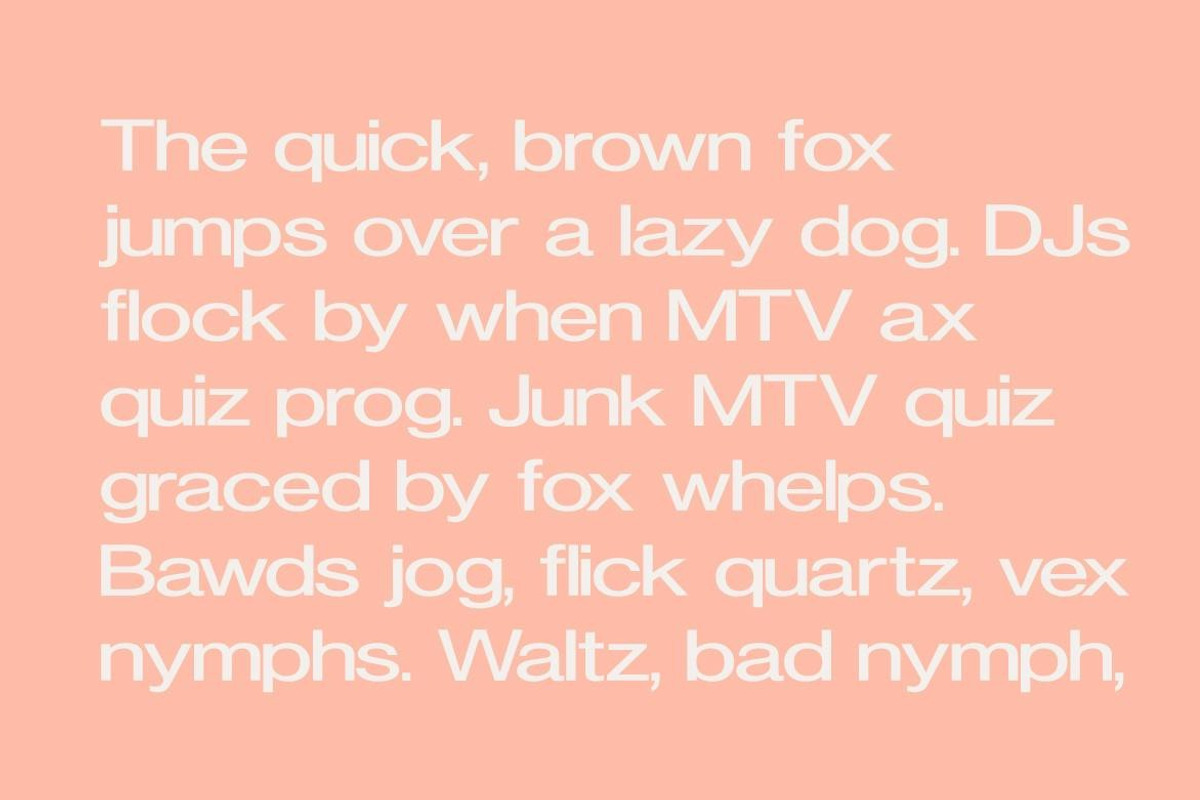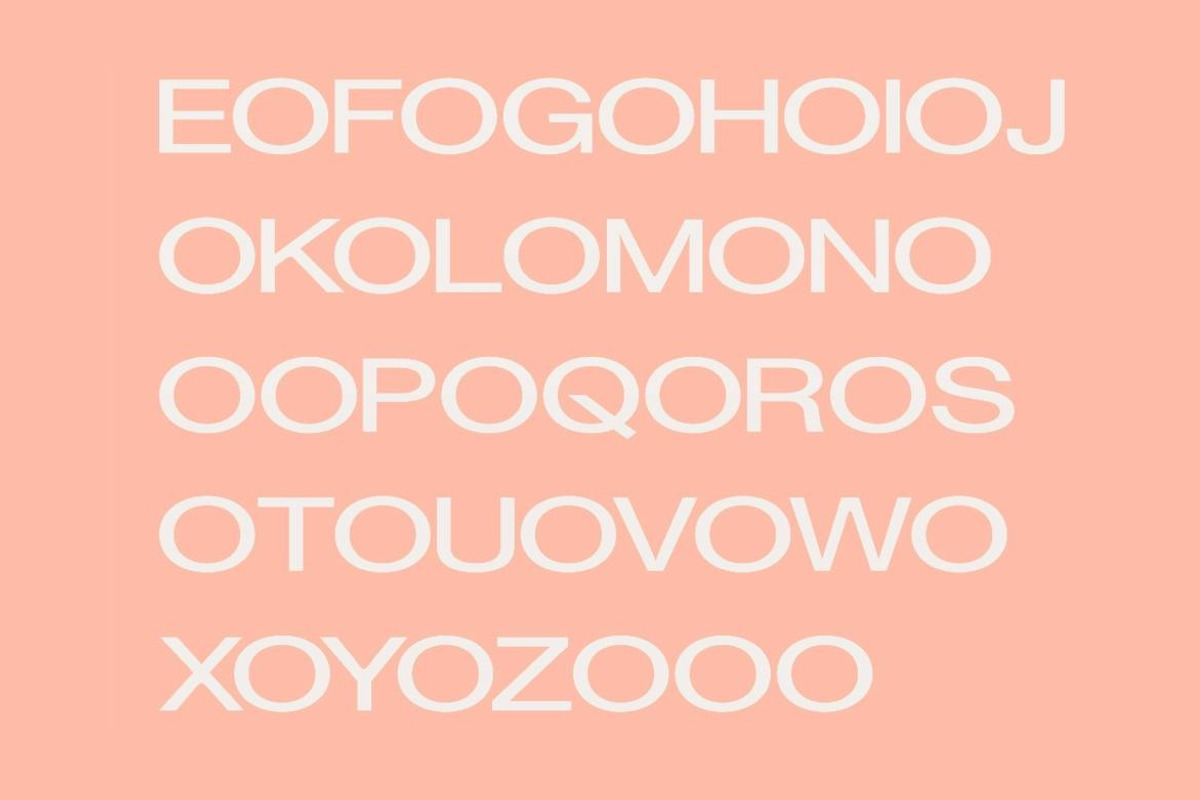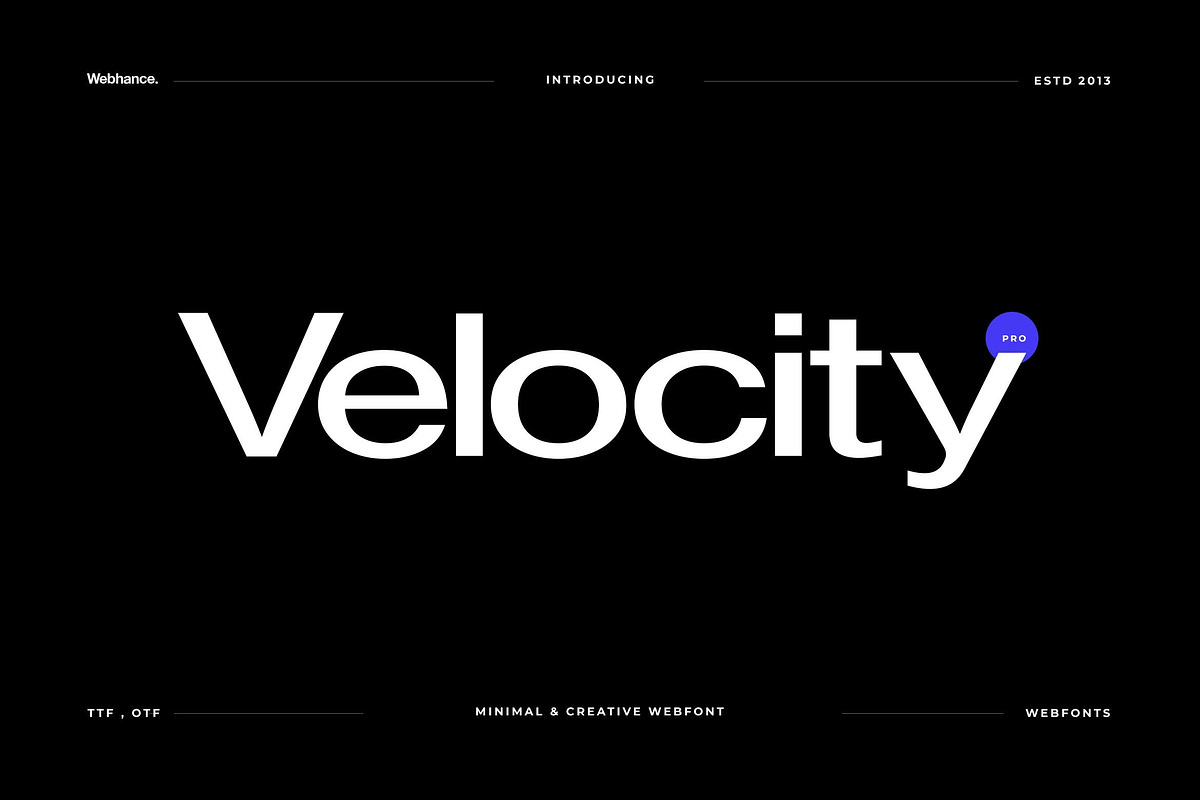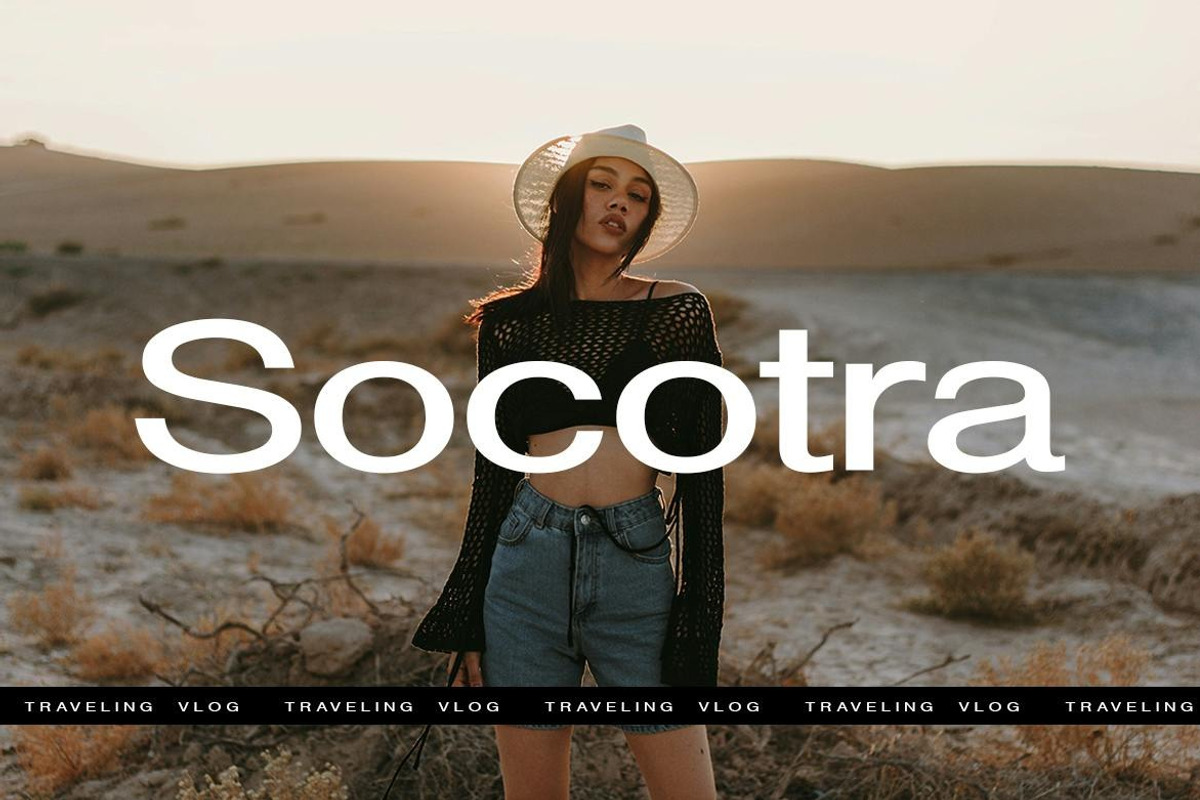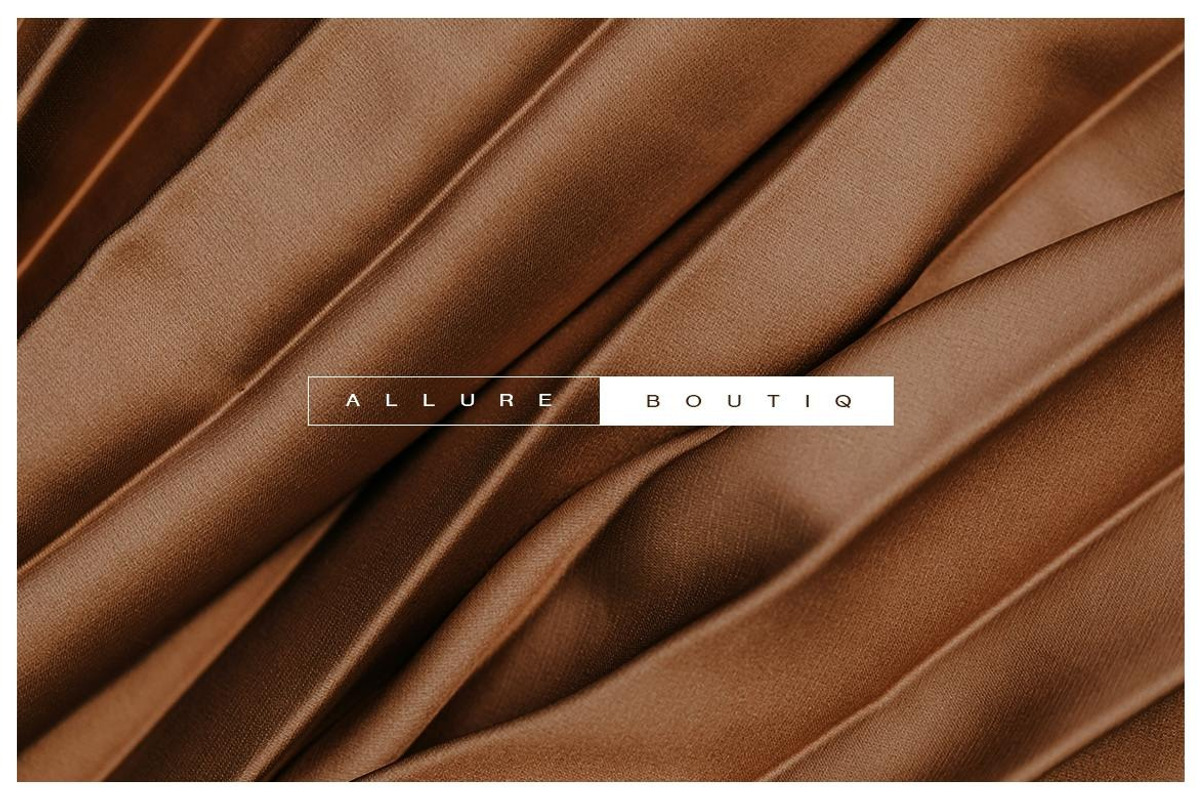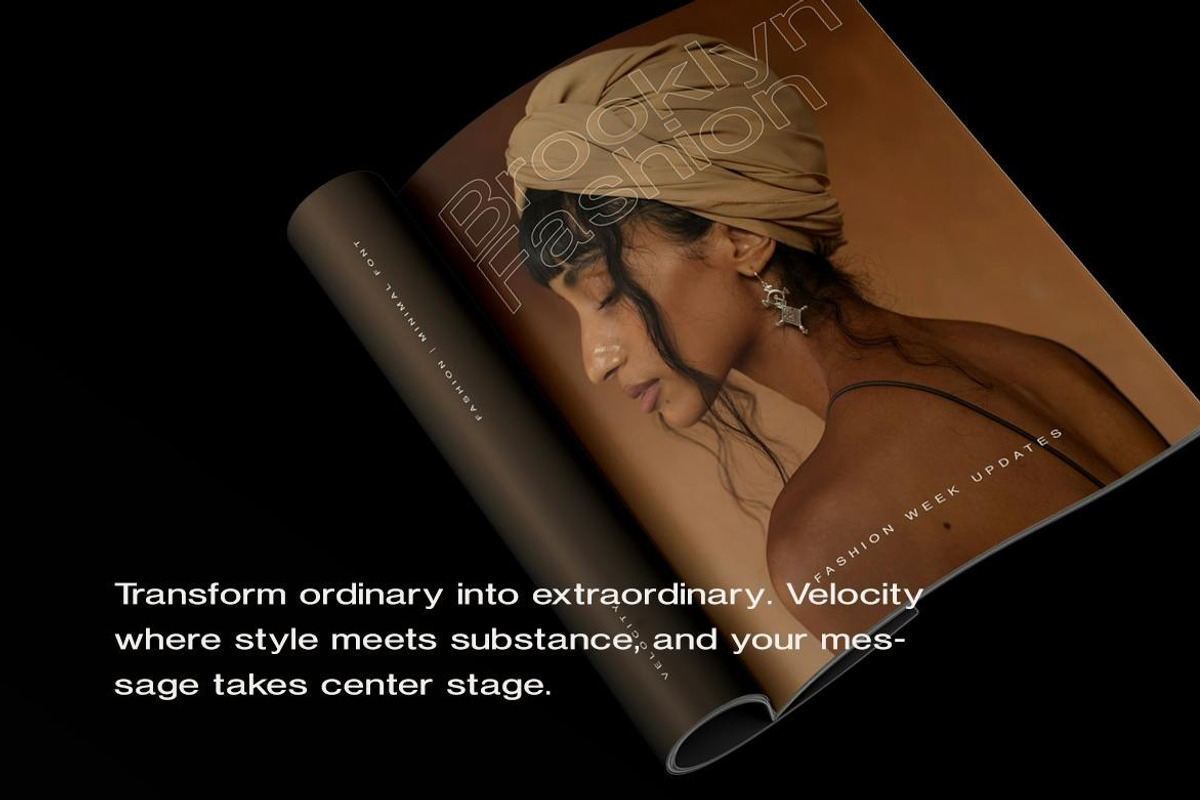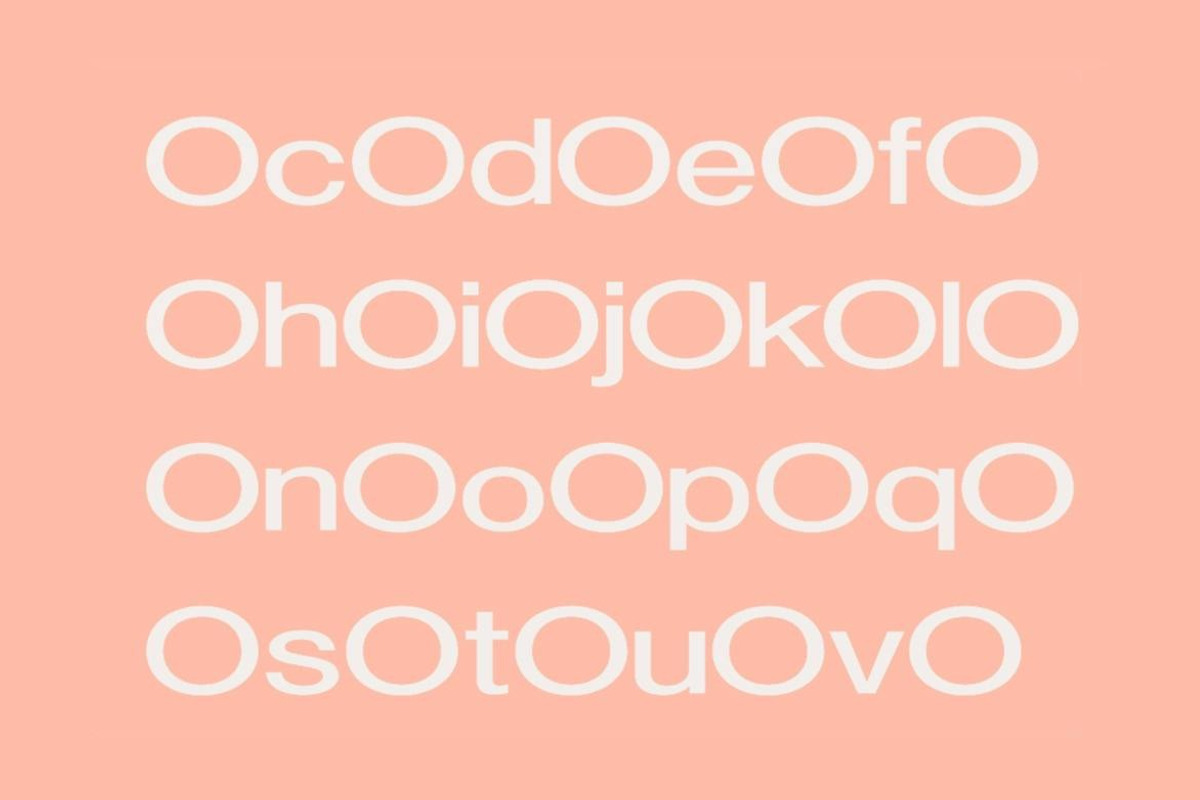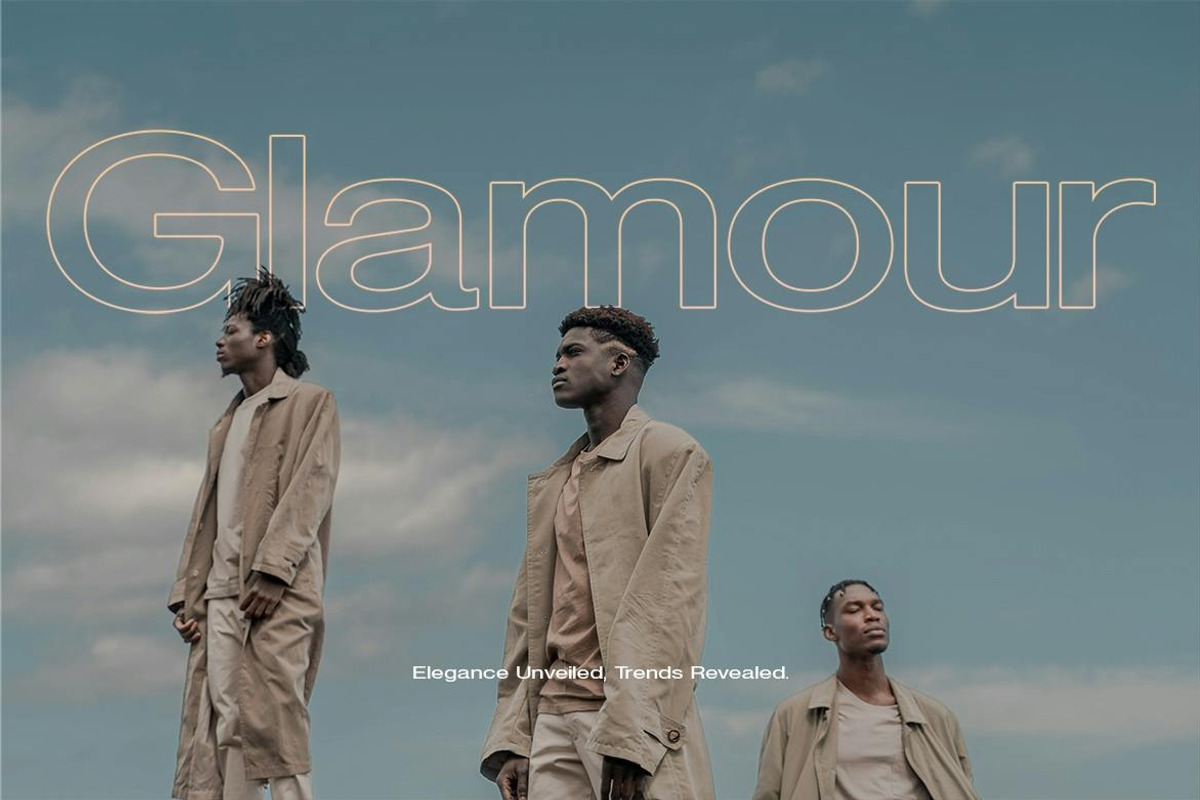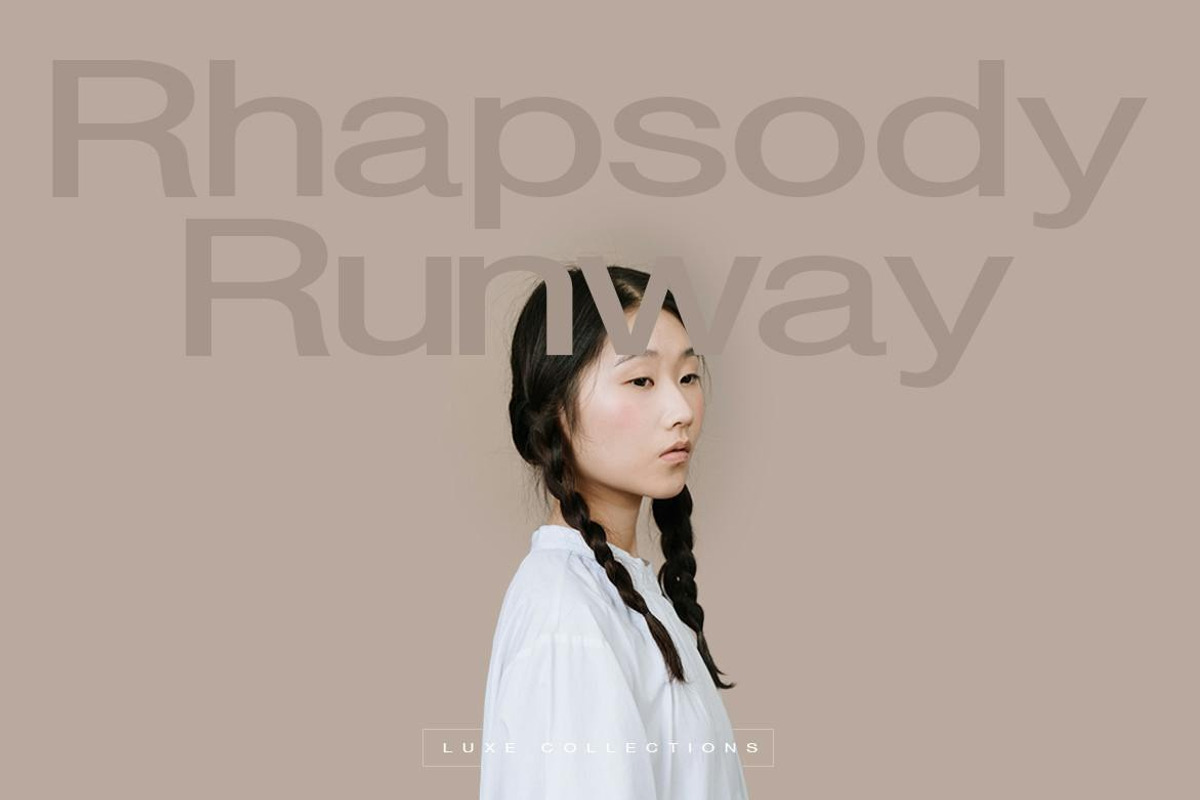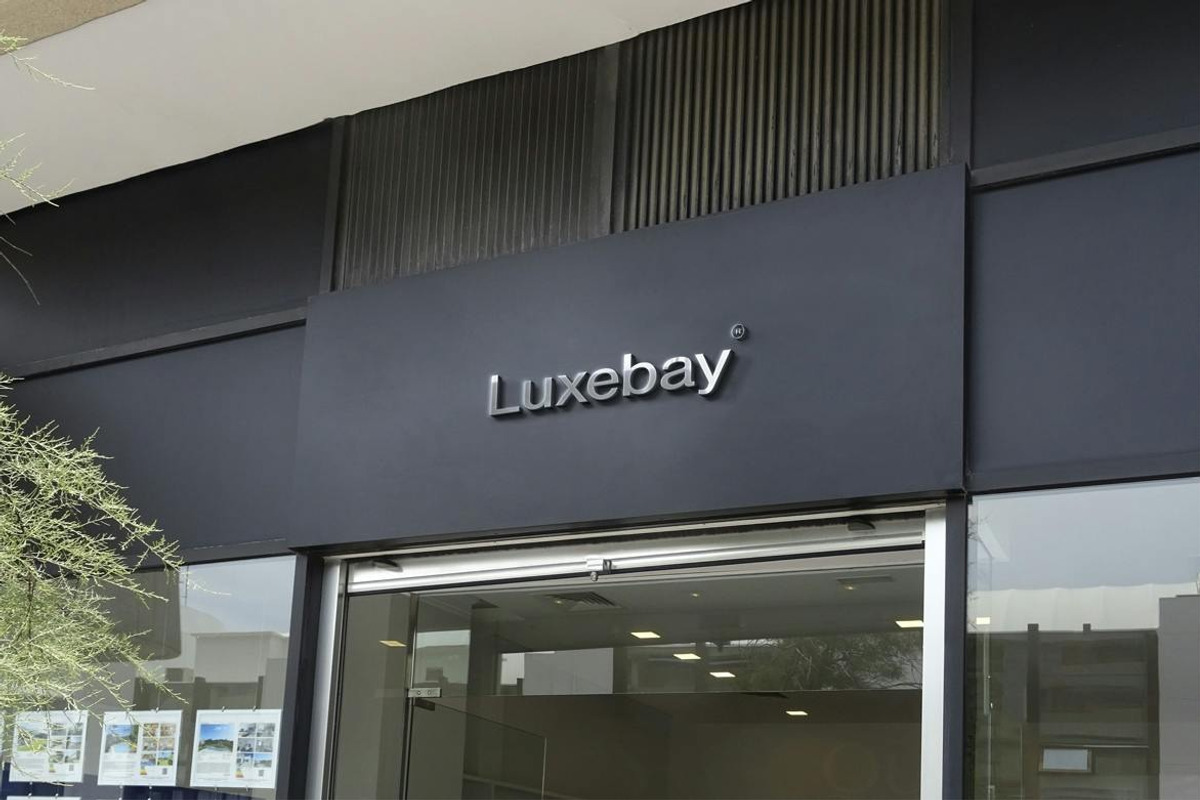
Velocity - Premium Sans-Serif font
Velocity - Minimal Sans-Serif Typeface
Experience the modern edge of design with Velocity, a sleek and versatile Minimal Sans-Serif font. Ideal for web design, logos, branding, luxury, premium aesthetics, movie designs, and fashion projects, Velocity adds a touch of sophistication to every character. Its clean lines and timeless appeal effortlessly blend elegance with contemporary style, making it the perfect choice for those seeking refined design solutions.